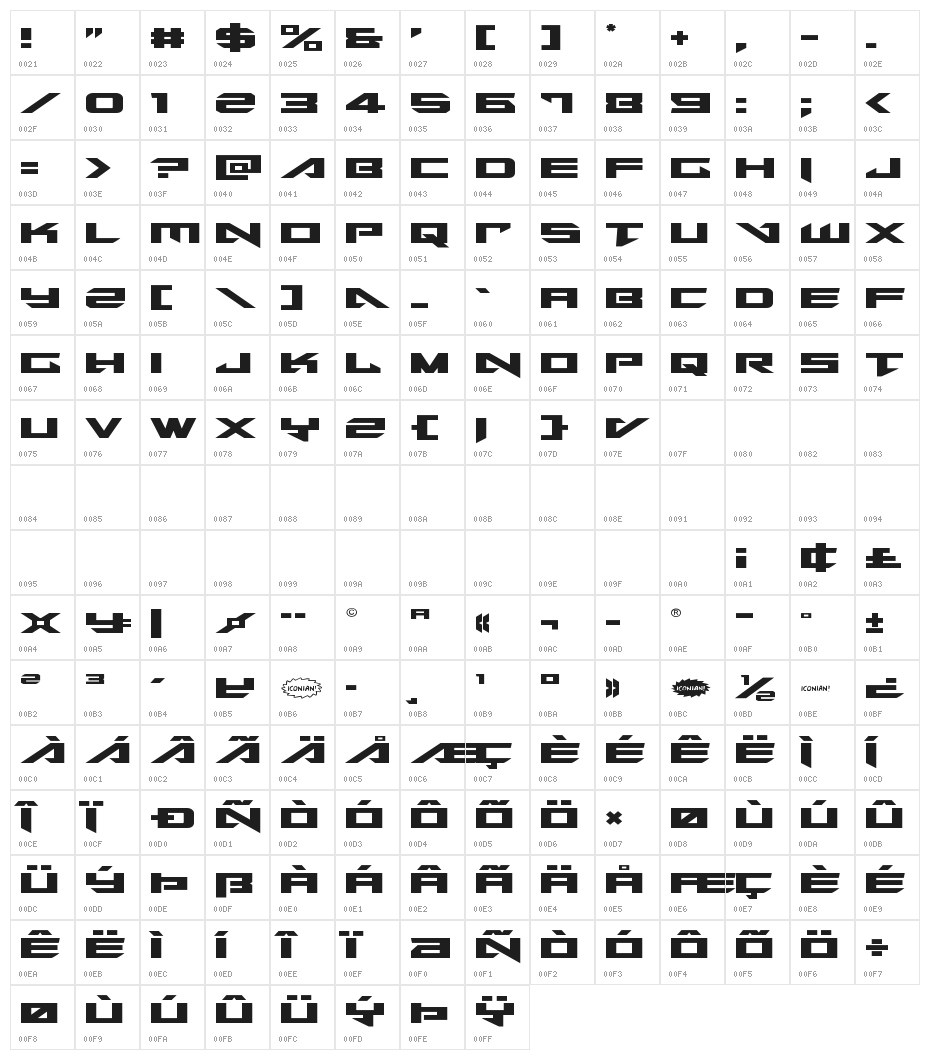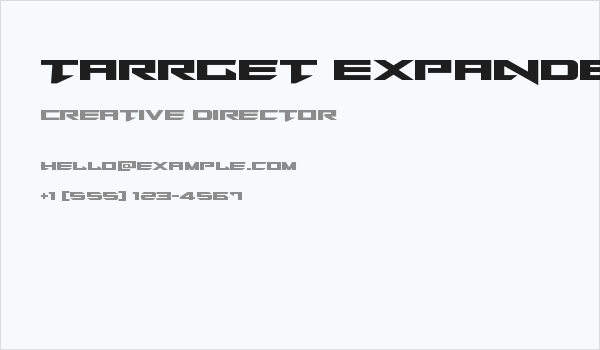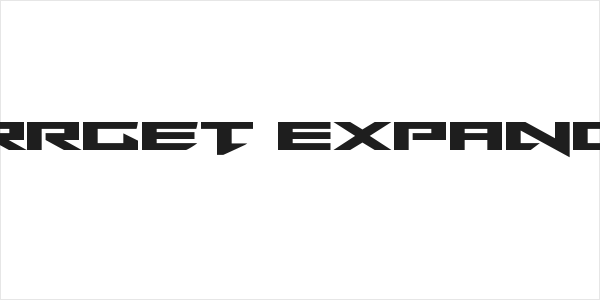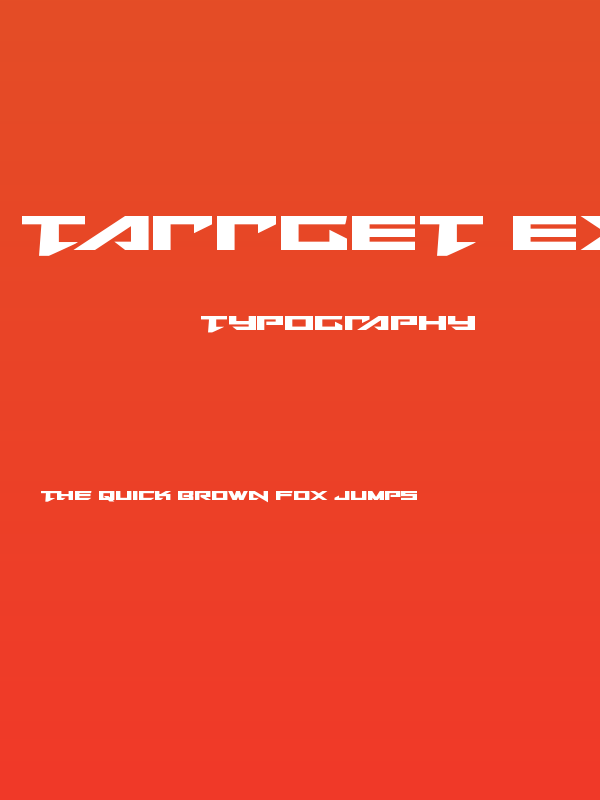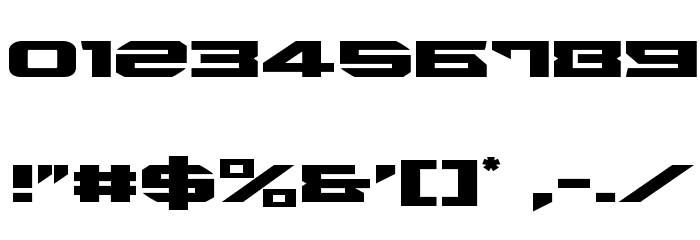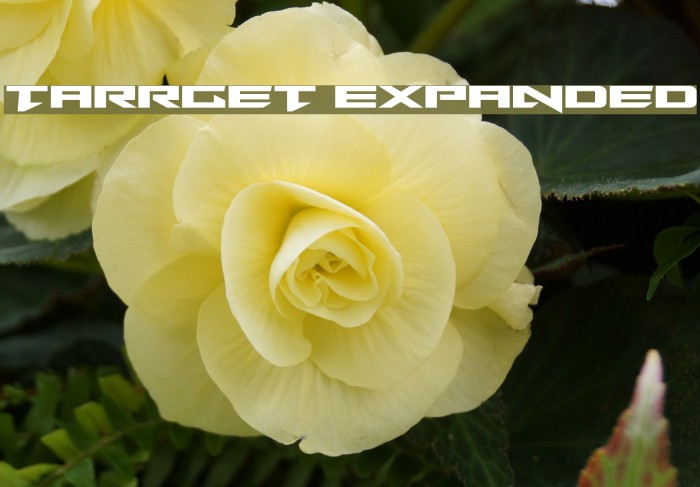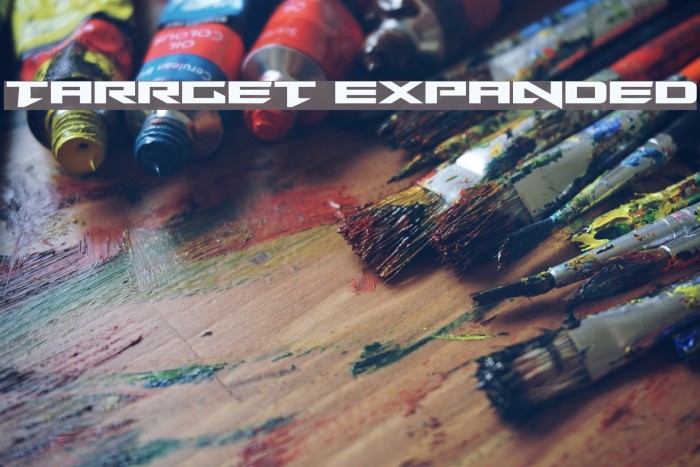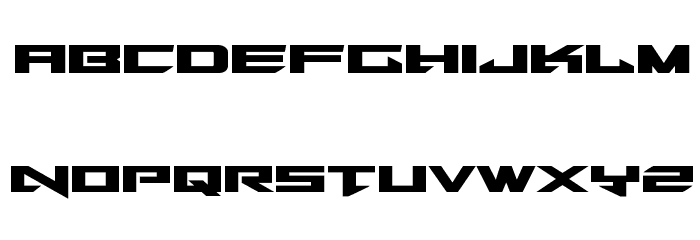
Tarrget Expanded Font
Tarrget Expanded Description
This font features a bold and futuristic design with sharp, angular edges and a geometric structure. The characters are wide and have a strong presence, making them ideal for attention-grabbing headlines or logos. The uppercase letters are particularly striking, with a consistent height and width that create a uniform appearance. The numbers and special characters maintain the same bold style, ensuring cohesion across all text elements. The font's unique style is reminiscent of sci-fi themes, making it suitable for projects that require a modern and edgy look.
| Proposed Projects | Ideal for sci-fi themed designs, video game titles, technology branding, and futuristic posters. |